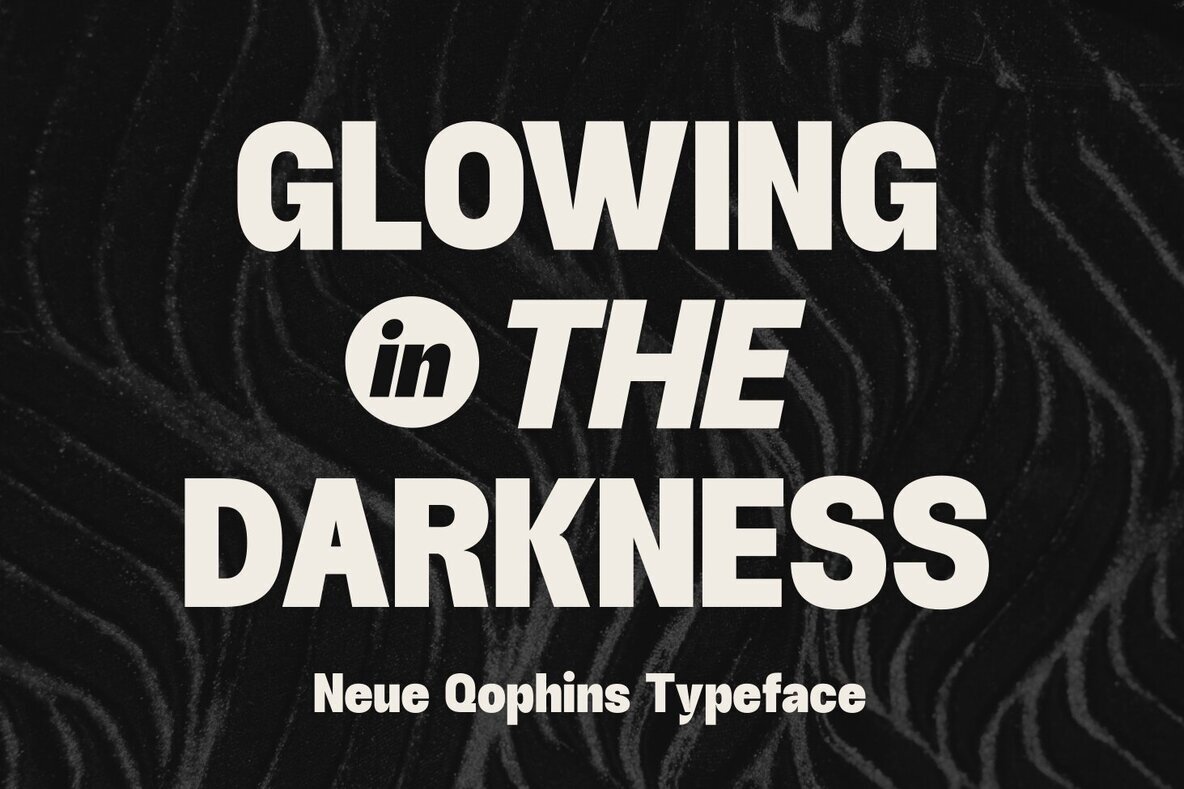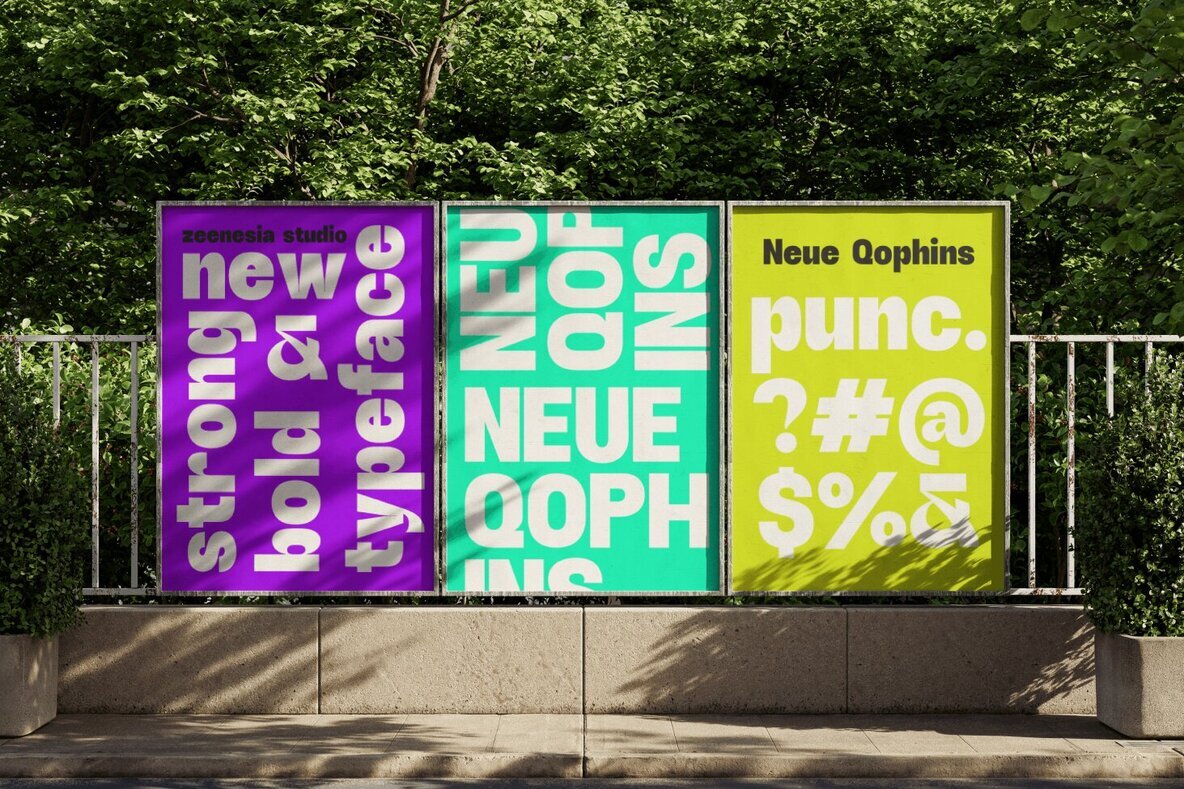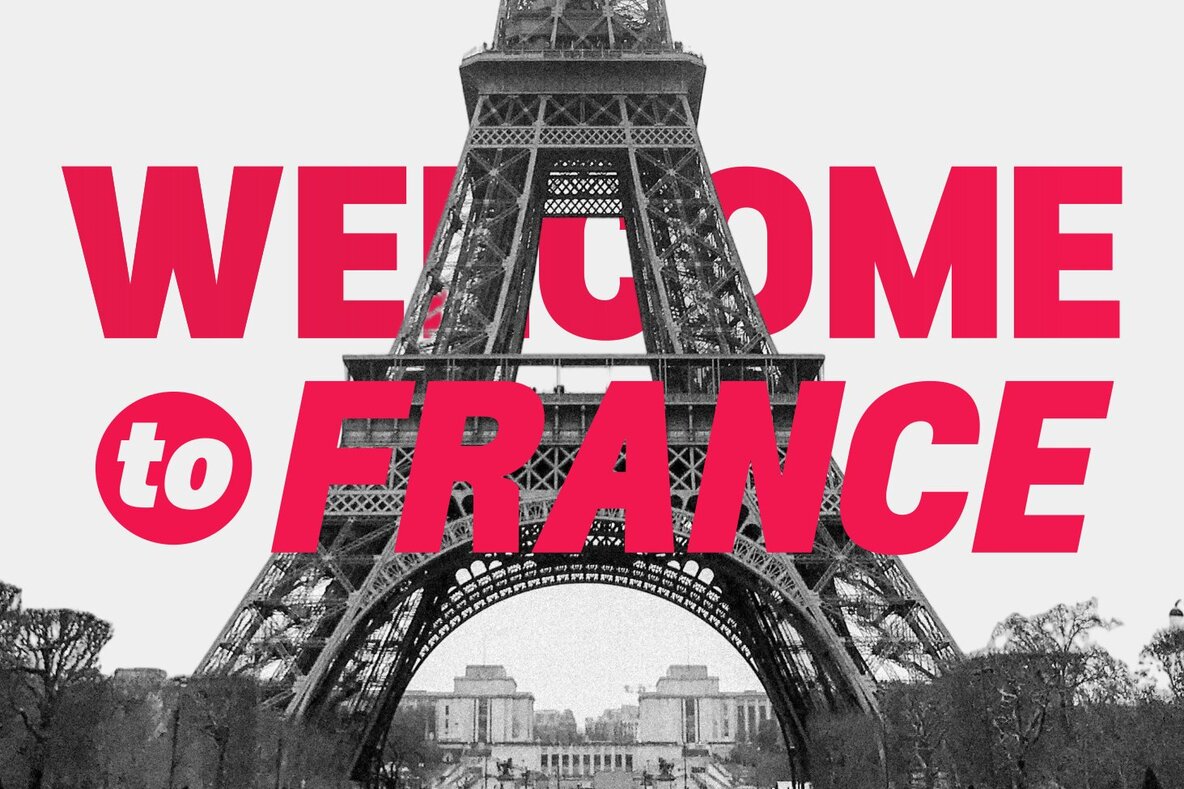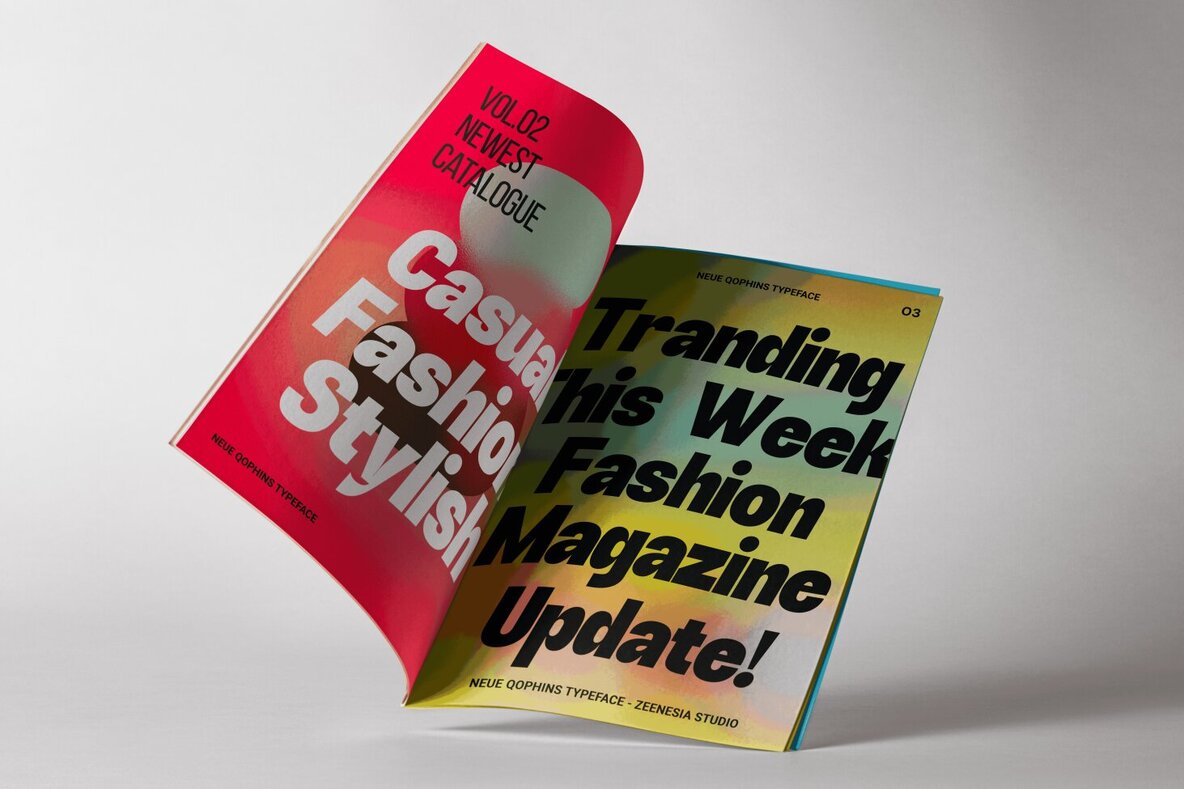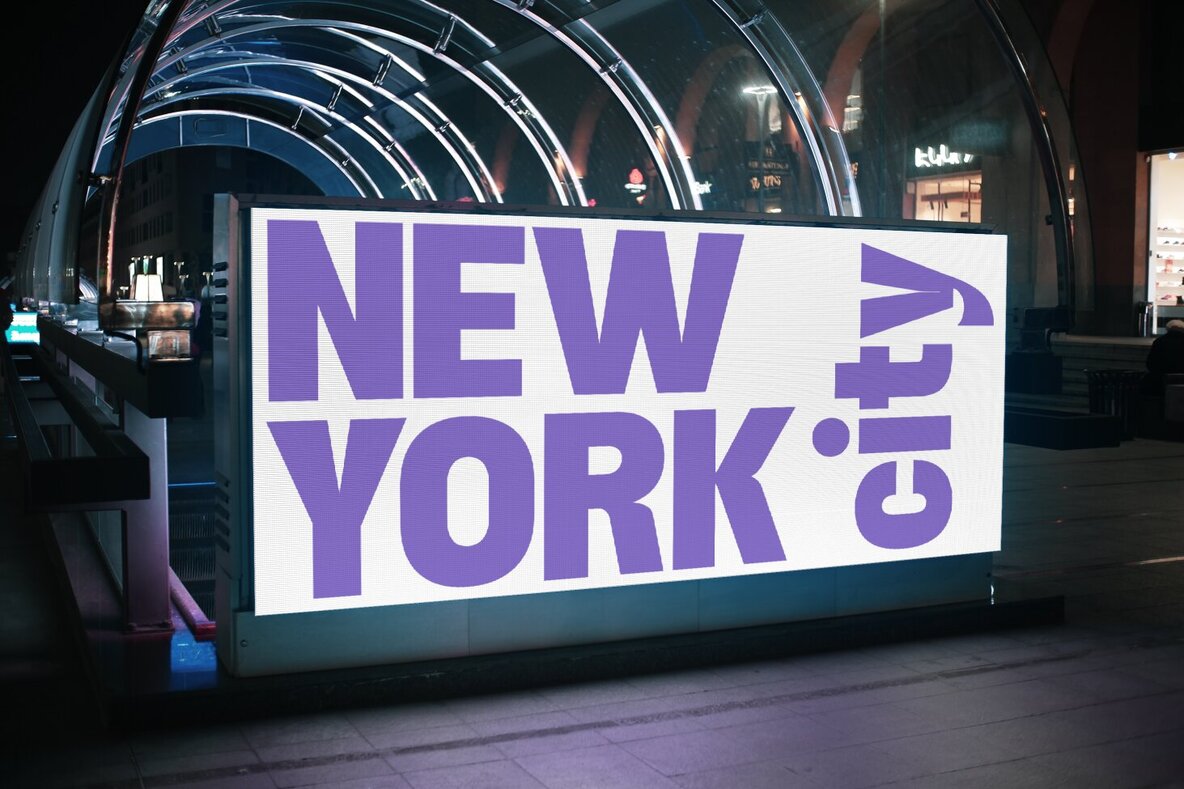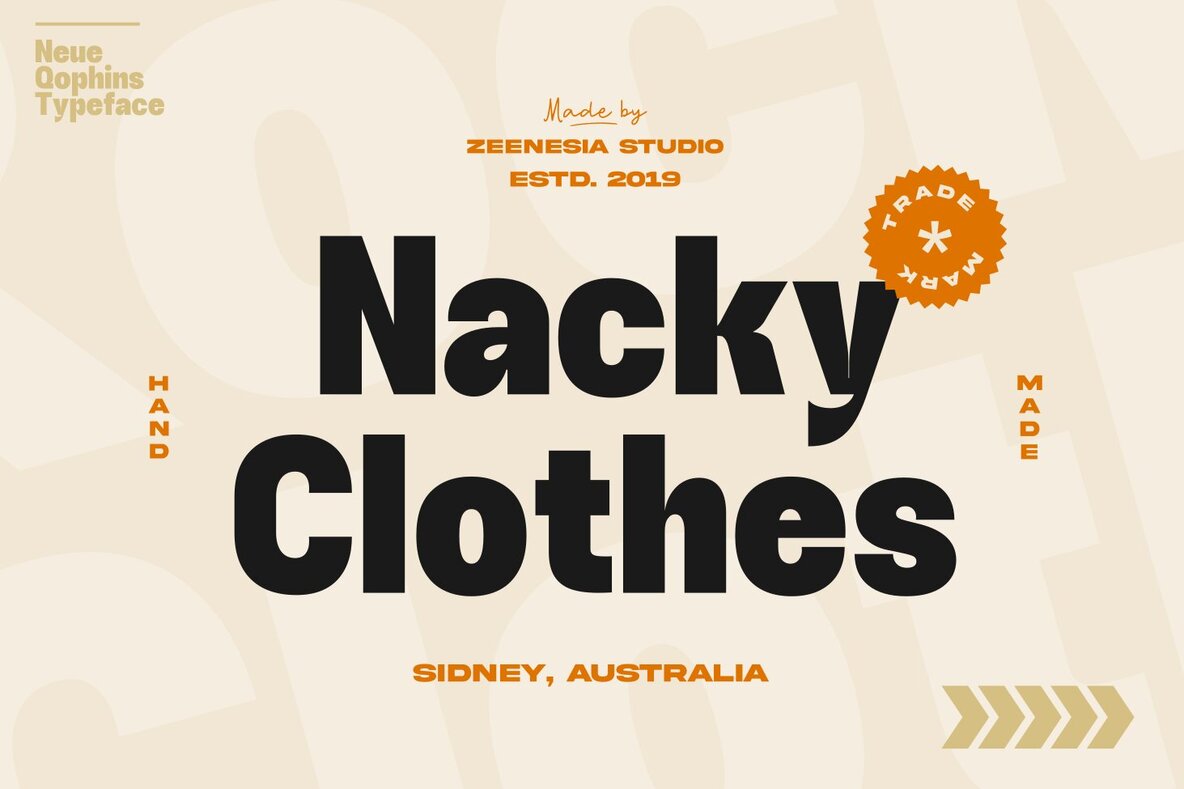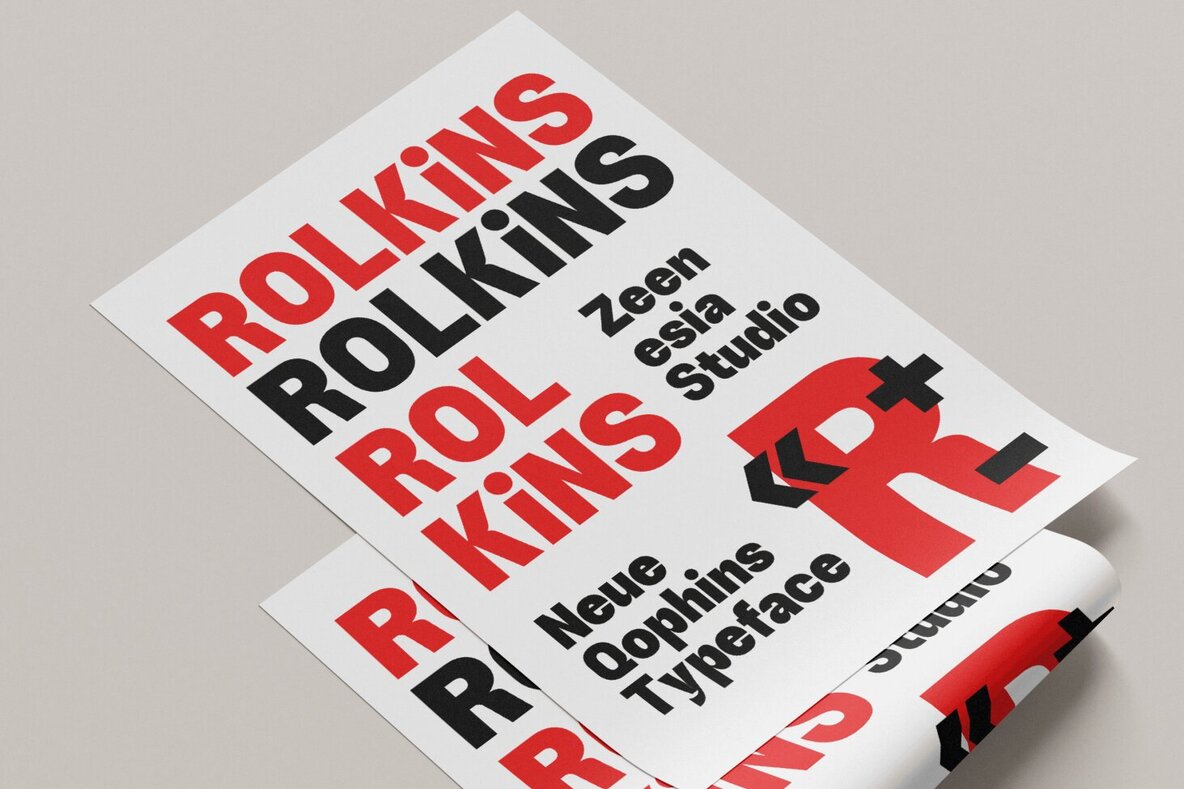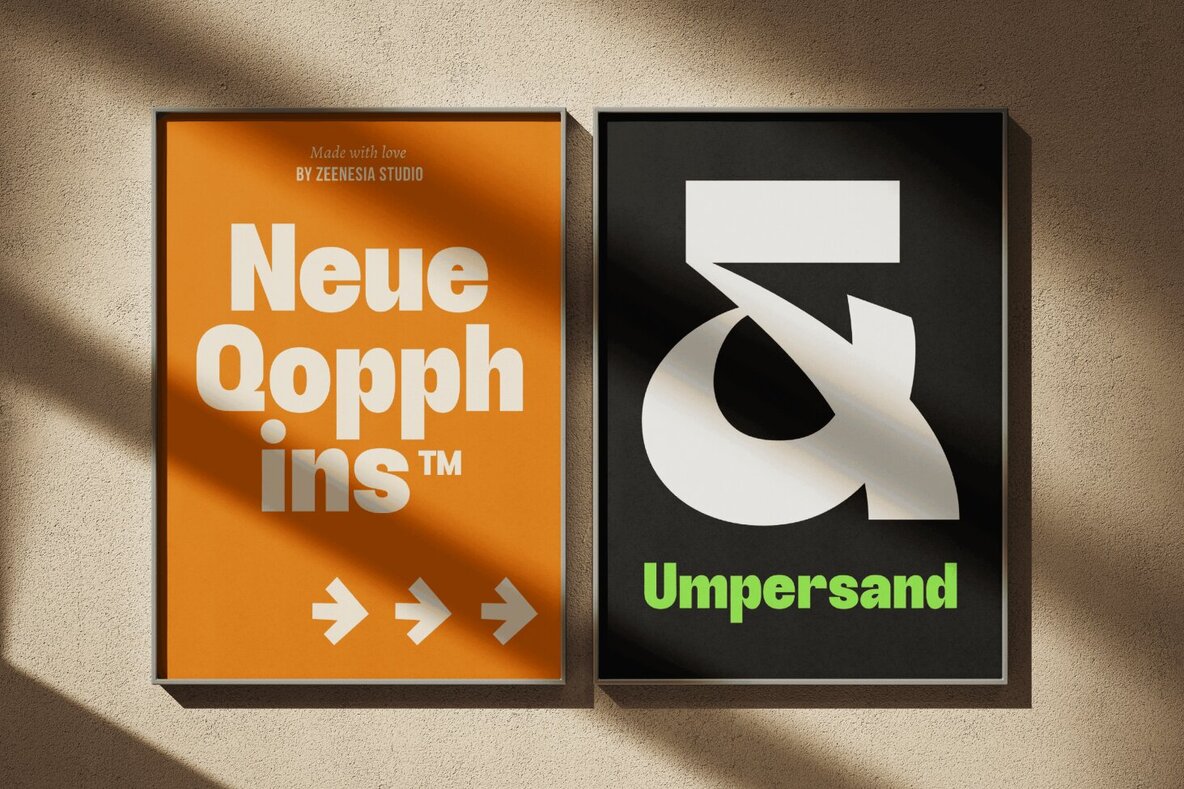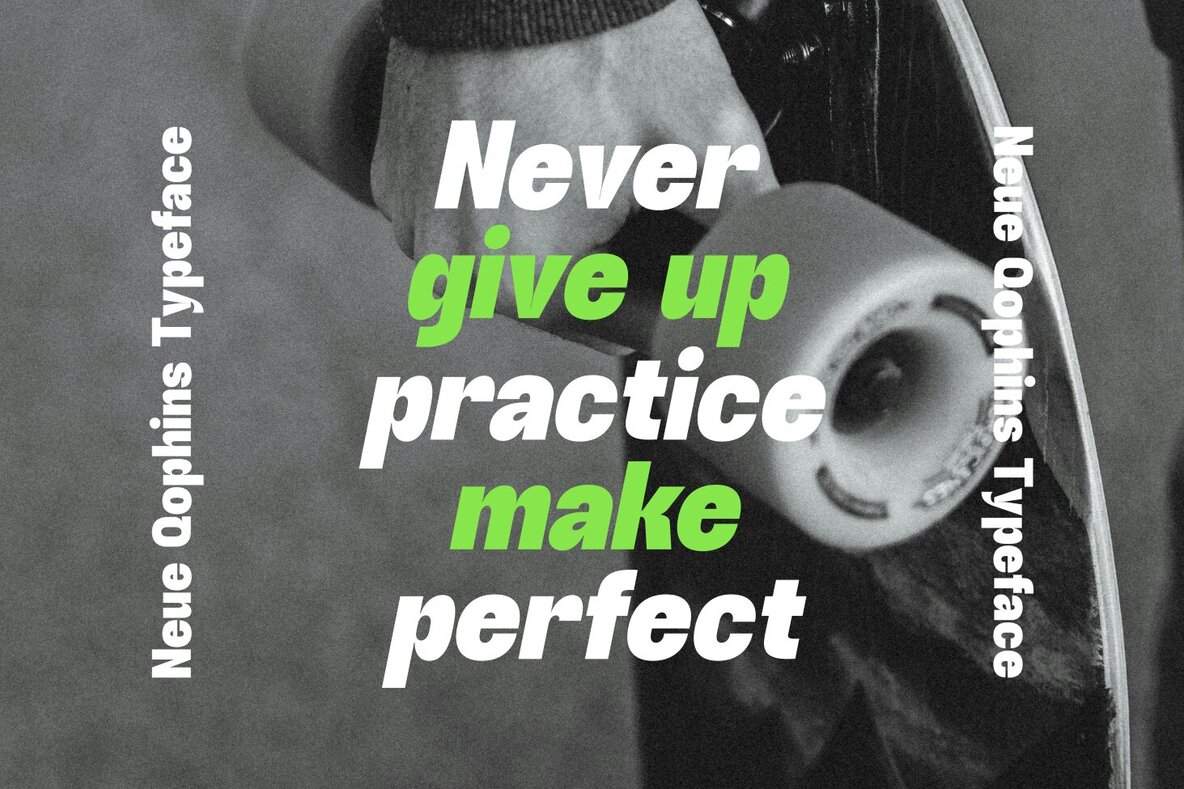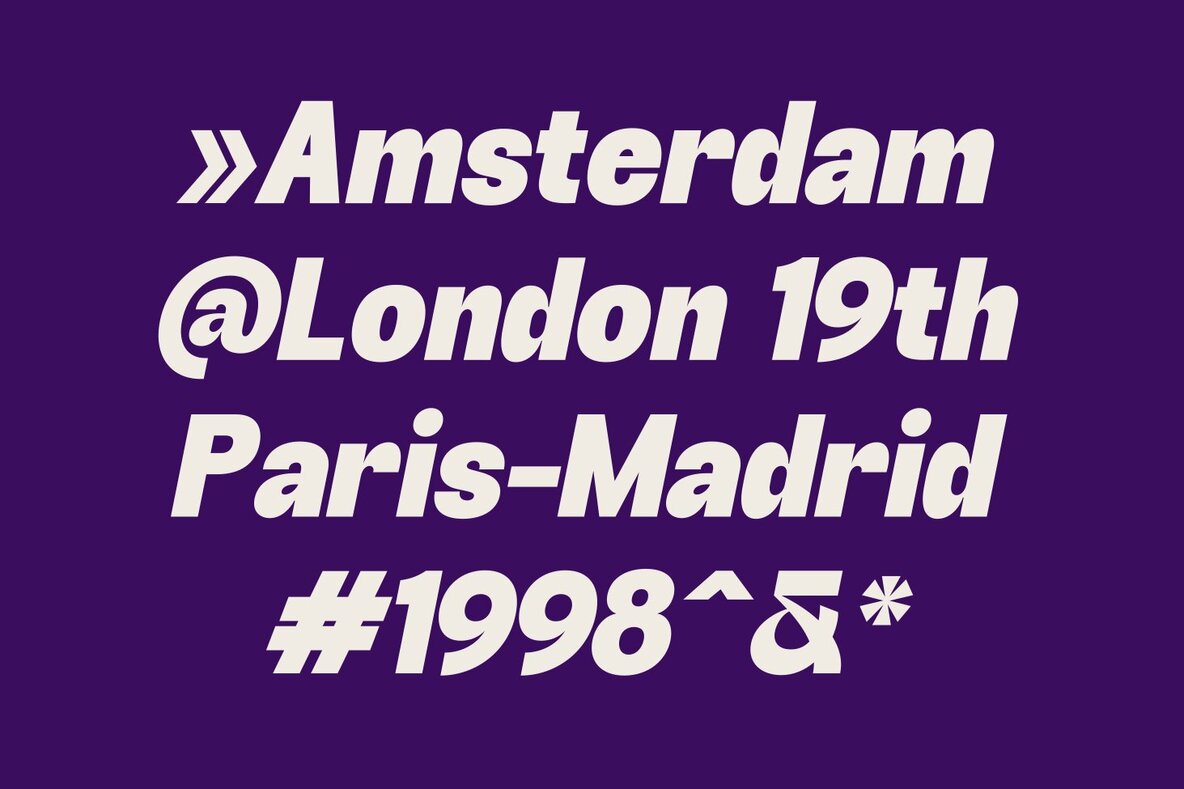
Neue Qophins Font
Neue Qophins is a modern, bold, and striking typeface that commands attention with its strong presence and contemporary design. With a robust Bold weight complemented by its Regular and Oblique styles, Neue Qophins is versatile enough to be used across a variety of projects, from branding to editorial design. This typeface features clean lines and smooth curves, giving it a professional and polished appearance while maintaining a distinctive character. The Bold weight makes a powerful statement, perfect for headlines and titles, while the Regular style ensures readability for body text. The Oblique style adds a subtle dynamic touch, making it ideal for adding emphasis and sophistication. Neue Qophins is designed to provide balance and impact, seamlessly blending style and functionality. With its versatility and adaptability, it’s an excellent choice for designers looking for a contemporary font that stands out and elevates visual compositions.